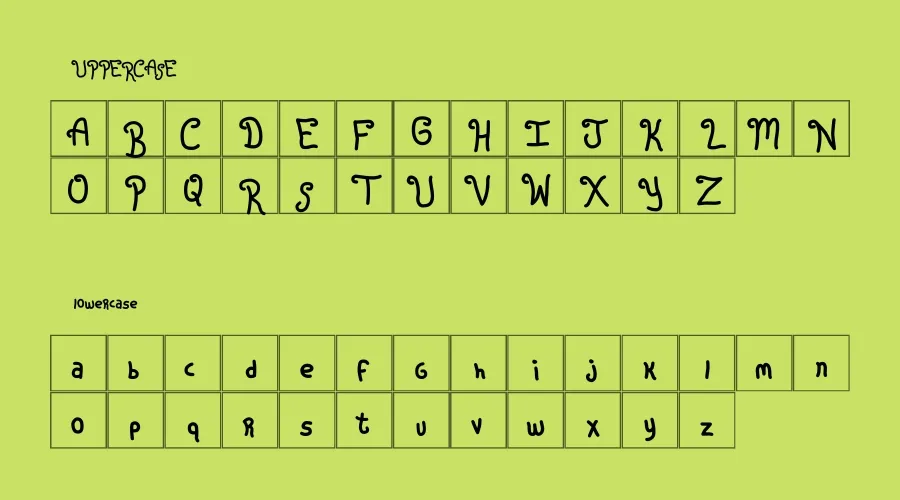
Rugrats Font
About Rugrats Font
The Rugrats font was invented by a well-known typographic designer named Jayde Garrow and is under the category of the script texture family. Actually, the name of Rugrats basically updated from American animated television series designed by Arlene Klasky.
It consists of 67 unique glyphs with 65 various characters of the alphabet set such as small letters, digits, symbols, capital letters, and punctuations. It makes excellent results when connected to this font with Scriptina Pro Font.
According to its script typeface family, you may use this font for various projects such as printings, email templates, social media posts, advertisements, and many more. This texture is commonly utilized for headlines and script goals.
This wonderful typeface supports many international languages such as Latin, Ladin, Latvian, Lithuanian, Lojban, Lombard, Low Saxon, and English.
Further, some developers find the font to be too soft and delicate for certain purposes. It is usually used for making various types of card designs like invitation cards, business cards, wedding cards, office cards, and birthday cards.
What type of font is Rugrats Font?
It was invented by a well-known typographic designer named Jayde Garrow and is under the category of the script texture family.
Is Rugrats Font easy to read?
Yes! This attractive typeface can make your procedure easy to read for the spectators. You can easily make a very graceful structure with the help of its modern texture.